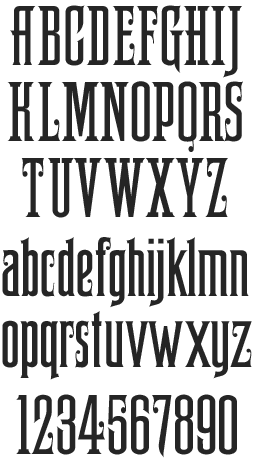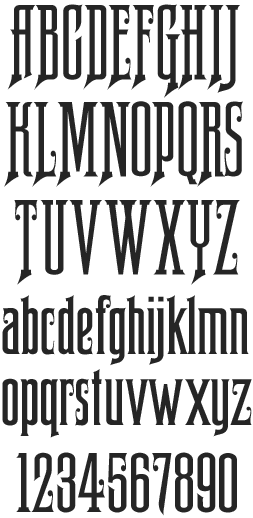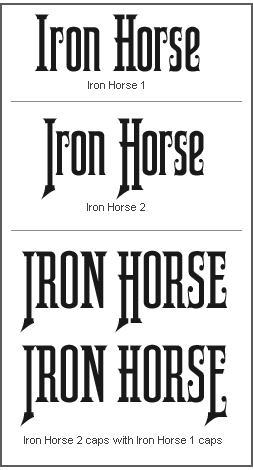
LHF Iron Horse John Studden brings us another stock certificate-inspired font. Iron Horse features both uppercase and lowercase. Very readable period style. Includes 2 fonts: LHF Iron Horse 1 and LHF Iron Horse 2. Try mixing them both together.